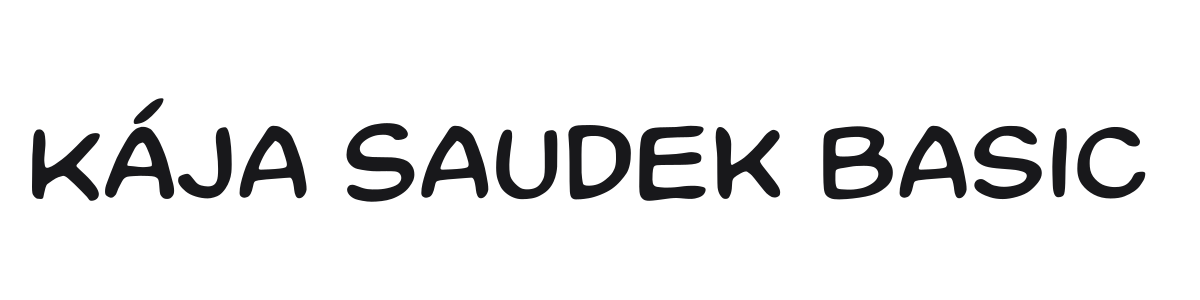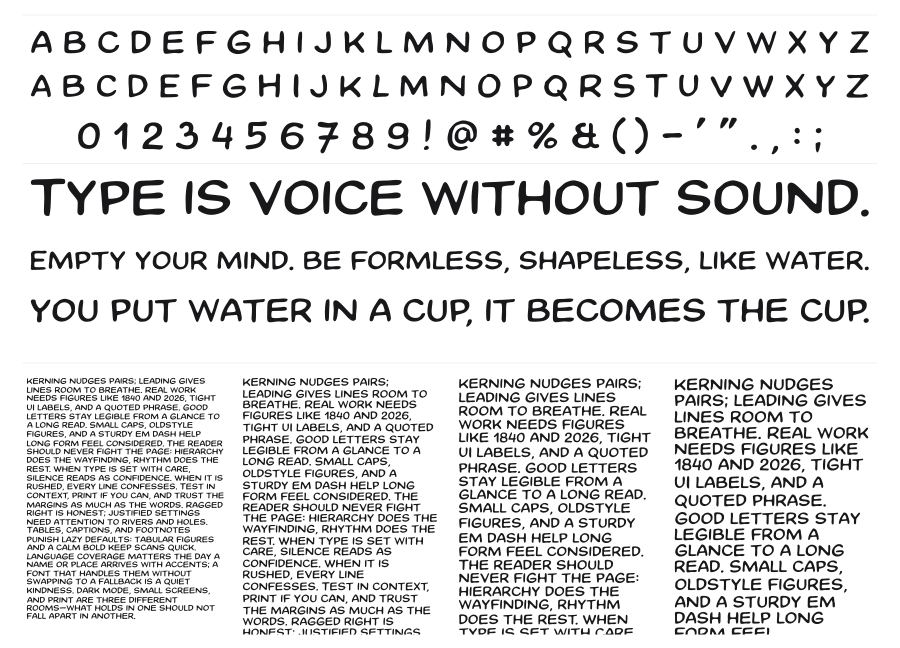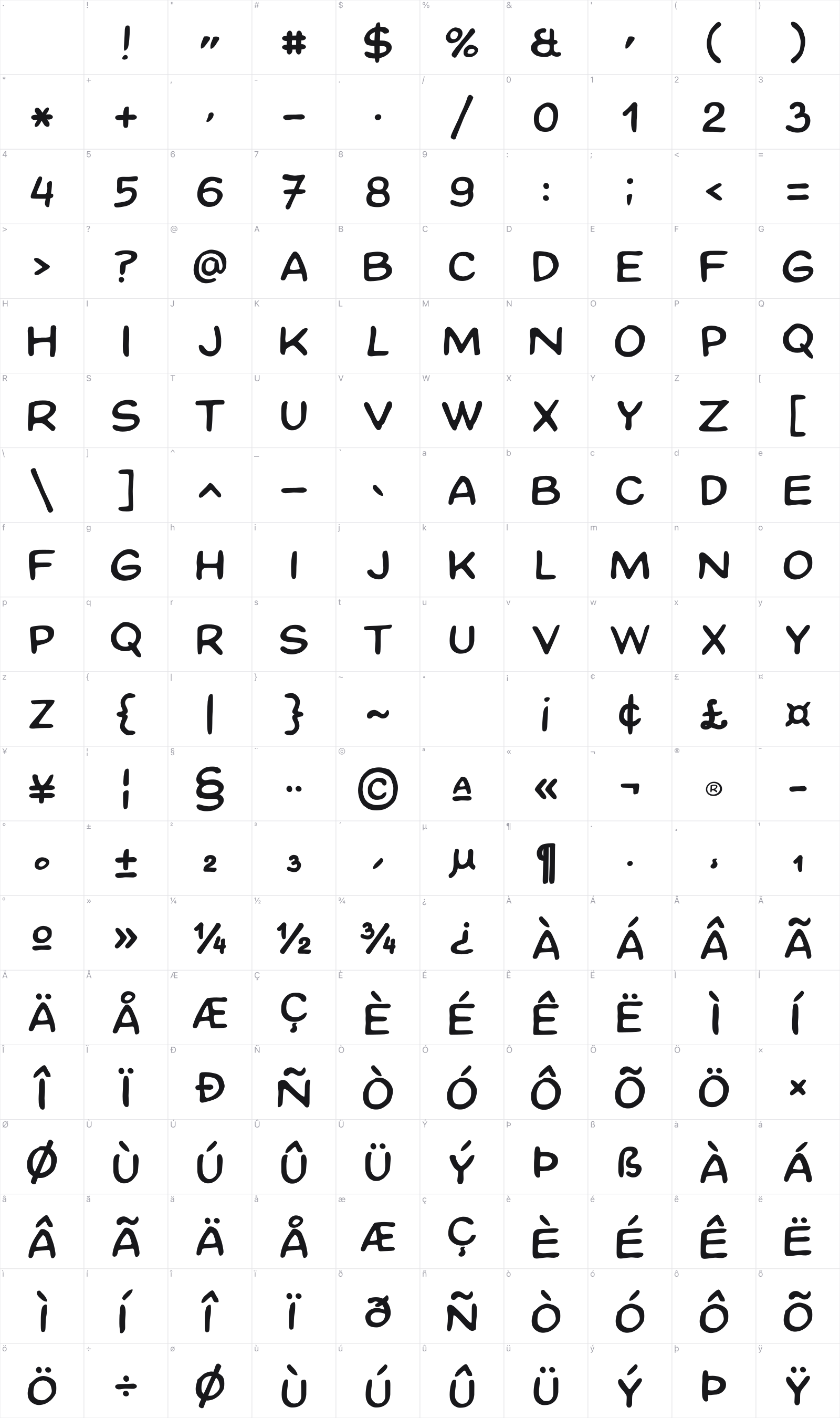
Kája Saudek Basic
Kája Saudek Basic is a bold comic-book hand-lettering font drawn from the actual handwriting of Czech illustrator Kája Saudek, best known for the graphic novel Muriel and Angels. The characters carry real personality — slightly irregular, organically rounded, and unmistakably hand-drawn without feeling sloppy. A genuine tribute to a specific lettering tradition rather than a generic comic font.